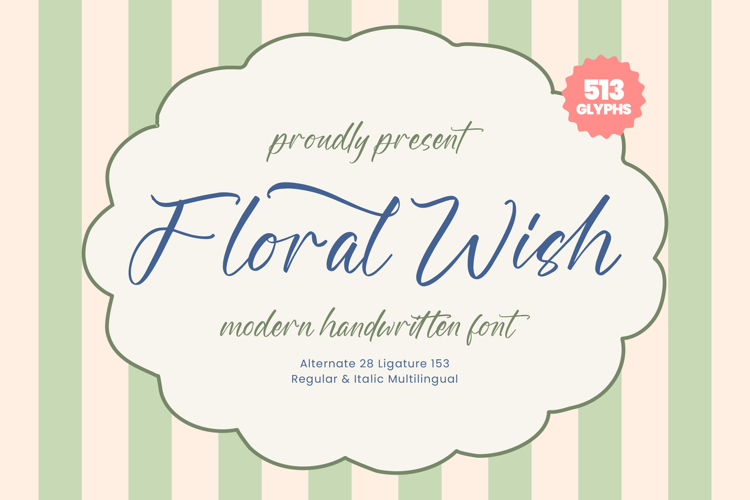
Floral Wish - Modern Handwritten Font
Elevate your creative vision with a typeface that embodies organic elegance and fluid motion. Floral Wish - Modern Handwritten Font is a masterfully crafted script designed to bring a touch of sophisticated charm to any design project. Featuring a harmonious balance of natural brush strokes and modern calligraphy, this font offers an authentic, handcrafted feel that resonates with contemporary aesthetics. Its graceful curves and rhythmic flow make Floral Wish - Modern Handwritten Font the ultimate choice for designers seeking a premium hand-lettered look without sacrificing professional readability.
Experience unparalleled creative freedom with an expansive set of typographic features and global accessibility. This comprehensive typeface boasts an impressive 513 glyphs, providing an extensive library of creative alternates and expressive ligatures. By including both Regular and Italic styles, Floral Wish - Modern Handwritten Font ensures that your typography remains dynamic and engaging. With its extensive multilingual support, Floral Wish - Modern Handwritten Font adapts seamlessly across global markets, making it incredibly versatile for international projects.
Transform your brand identity into a visual masterpiece with a font that speaks to luxury and intimacy. Floral Wish - Modern Handwritten Font is the perfect solution for luxury branding, high-end packaging, and bespoke wedding stationery. Its delicate yet confident presence is ideal for editorial design, lifestyle photography overlays, and cosmetic labels where a sense of personalized refinement is paramount. Whether used for social media graphics or boutique logos, Floral Wish - Modern Handwritten Font delivers a distinctive, high-impact aesthetic that captures the essence of modern grace.